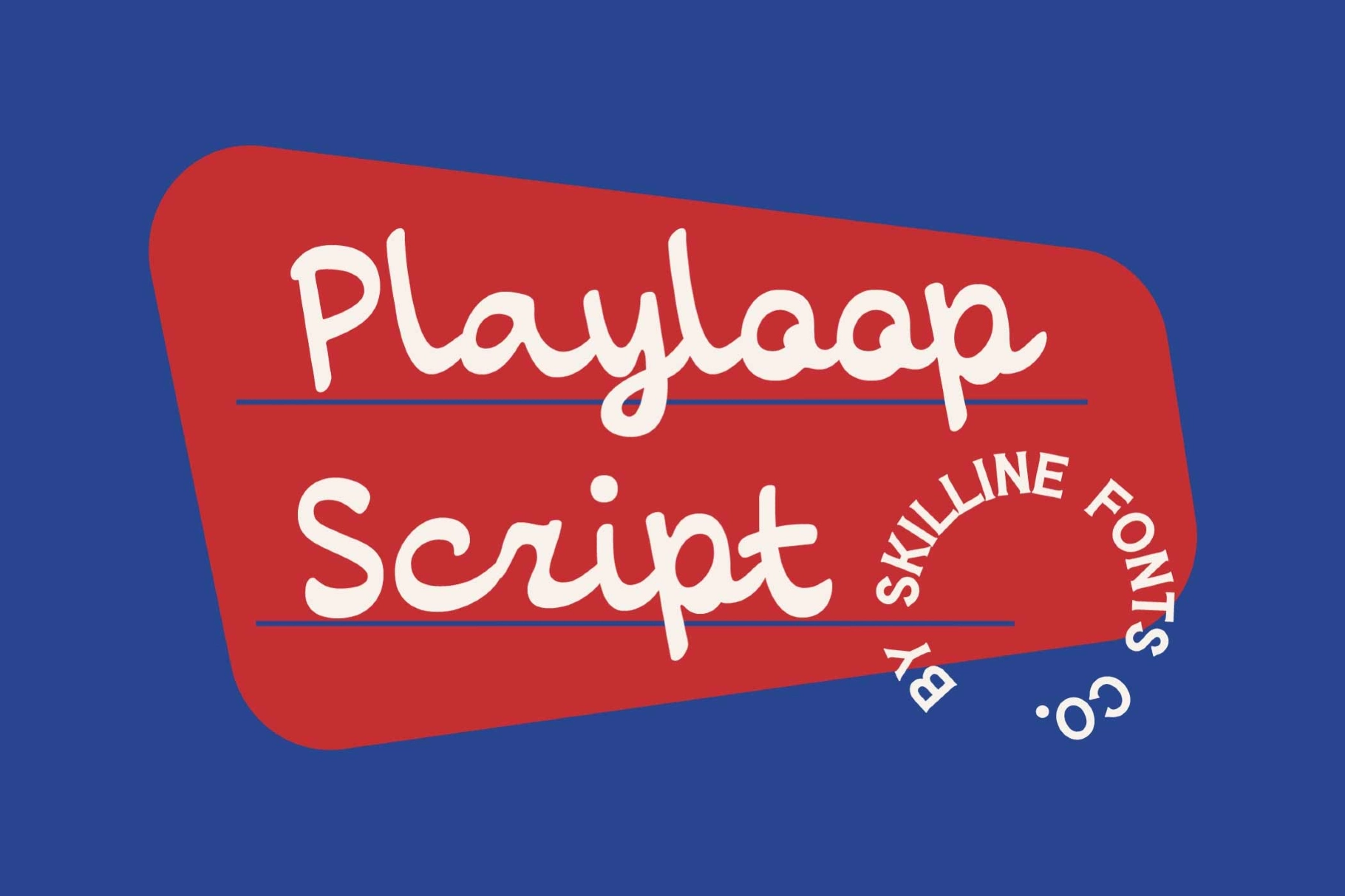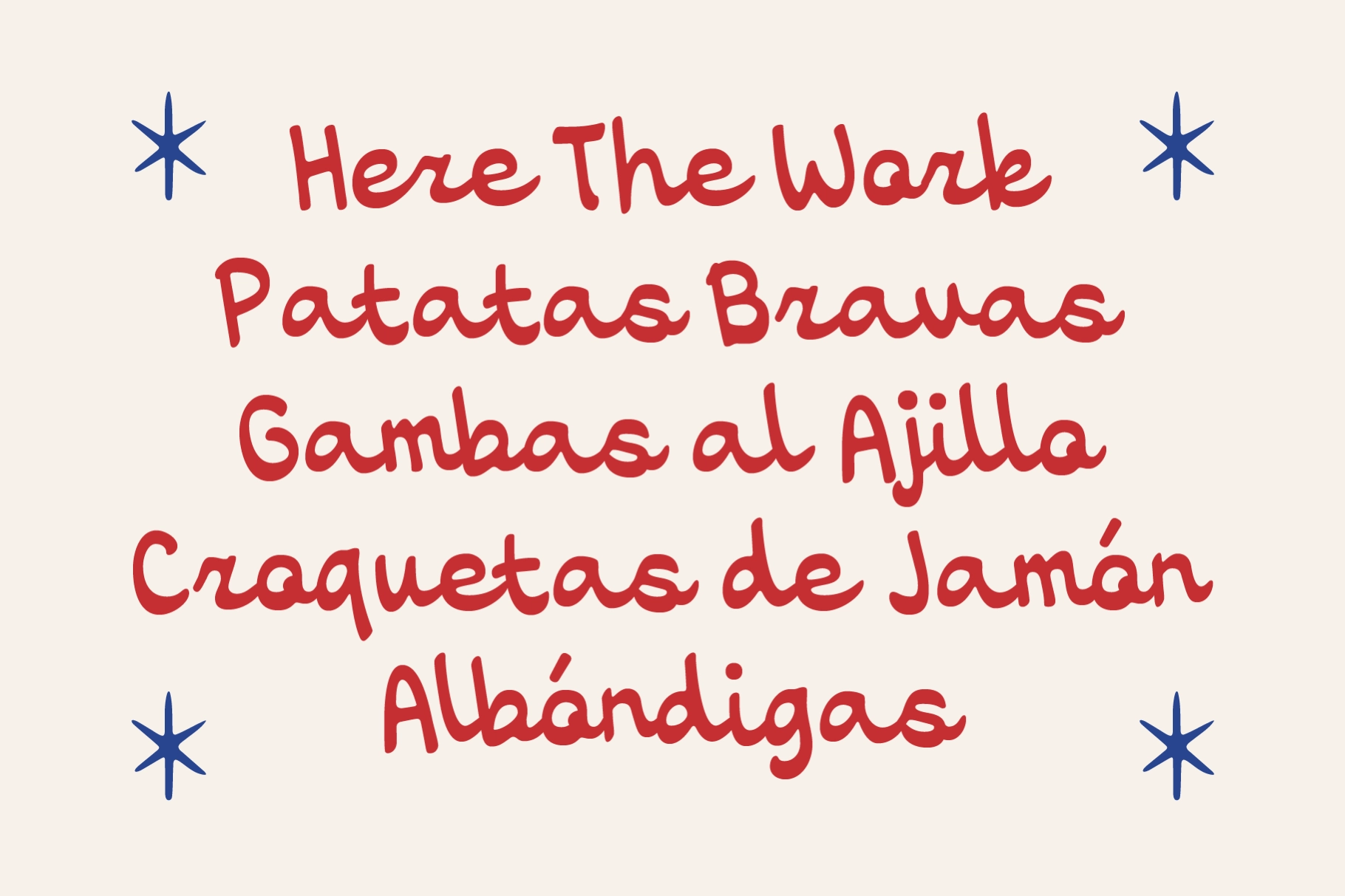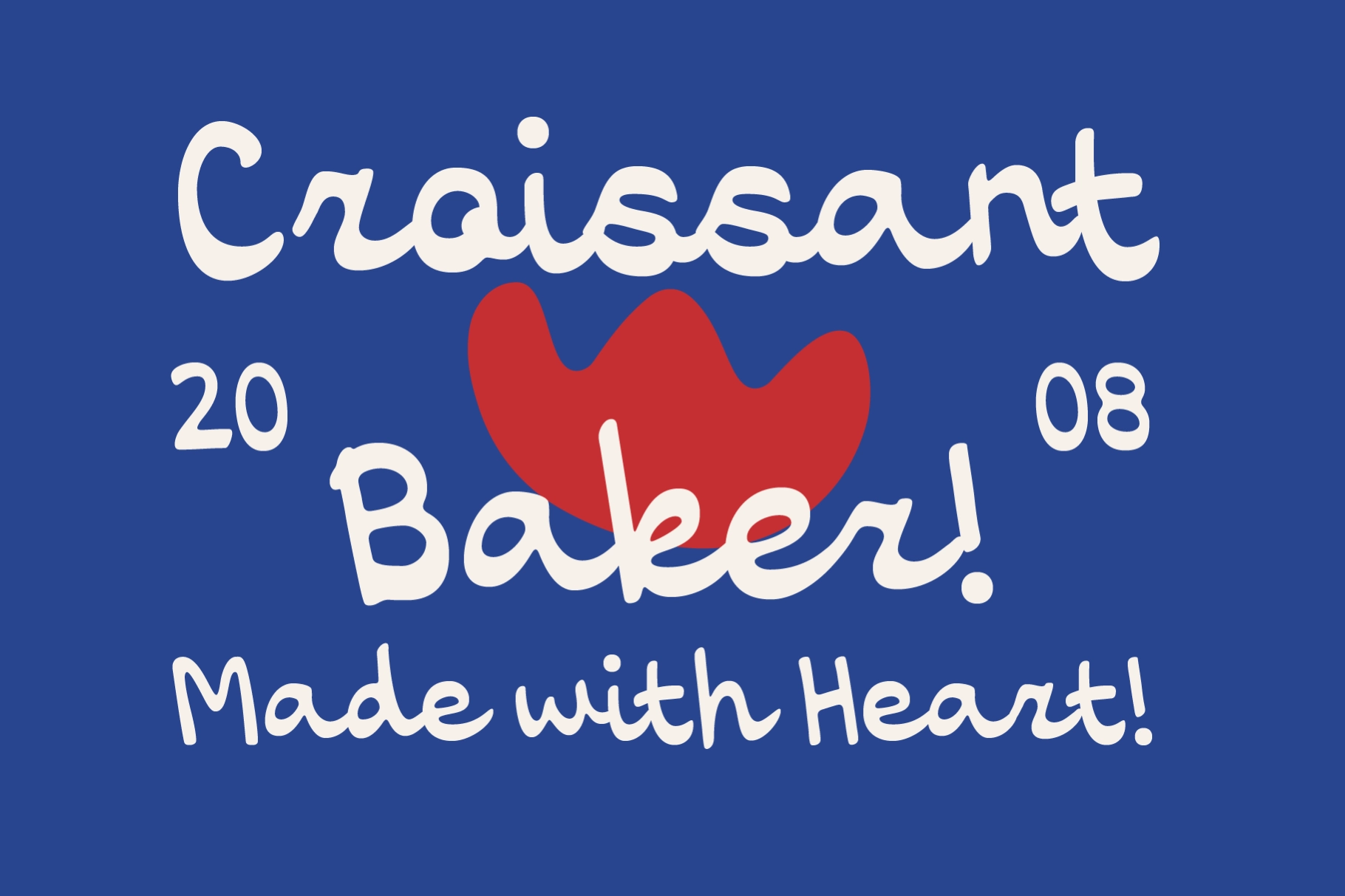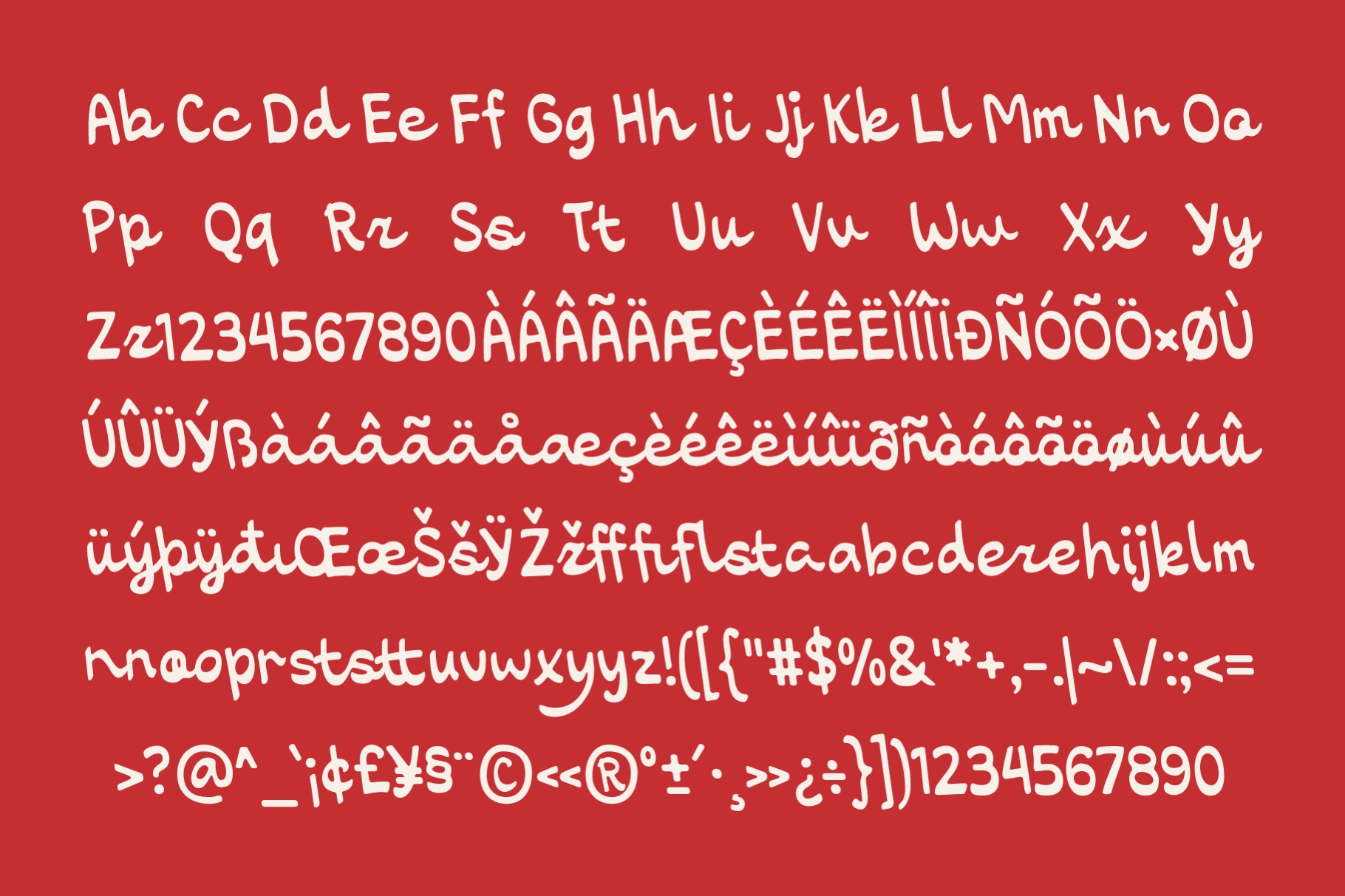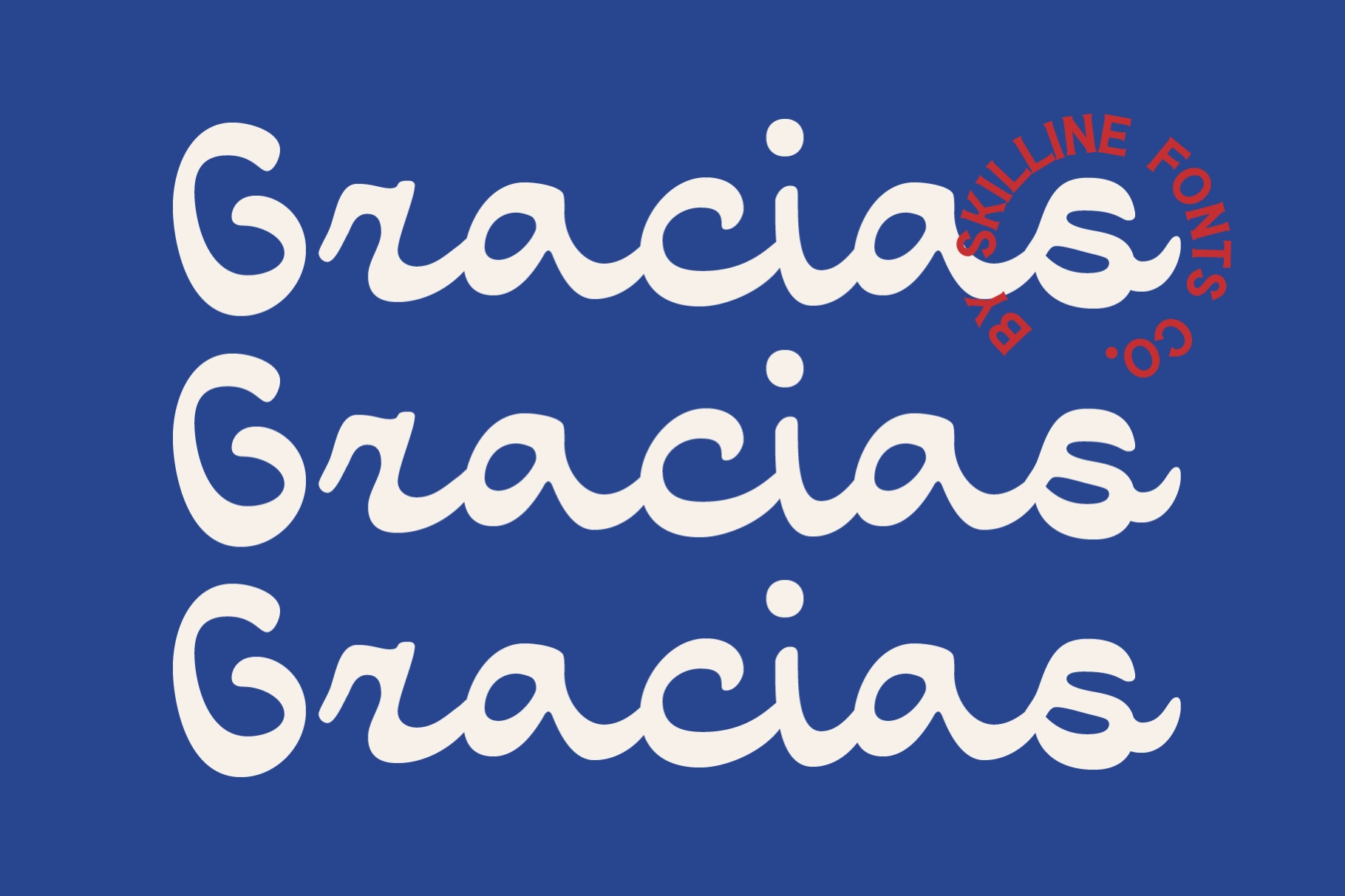
Playloop — Handwritten Marker Font
SFC Playloop Script
Playloop takes a marker-doodle hand and smooths it into a working handwriting font, its looped ascenders and bouncing baseline reading like a note scrawled between coffee orders. A single weight covers the range, built for headlines and short lines rather than dense paragraphs.
Ligatures catch ff, fi, fl, and ft pairs automatically, so tight letter combinations in café menus, packaging labels, and greeting cards keep their doodle warmth instead of colliding. Use it for children's branding, restaurant and bakery signage, social media graphics, school projects, and playful logo lockups.
- uppercase & lowercase, with alternate letterforms via 2 stylistic sets;
- numerals, punctuation & symbols;
- automatic ligatures, discretionary ligatures;